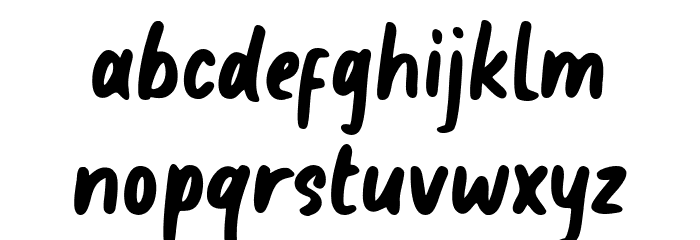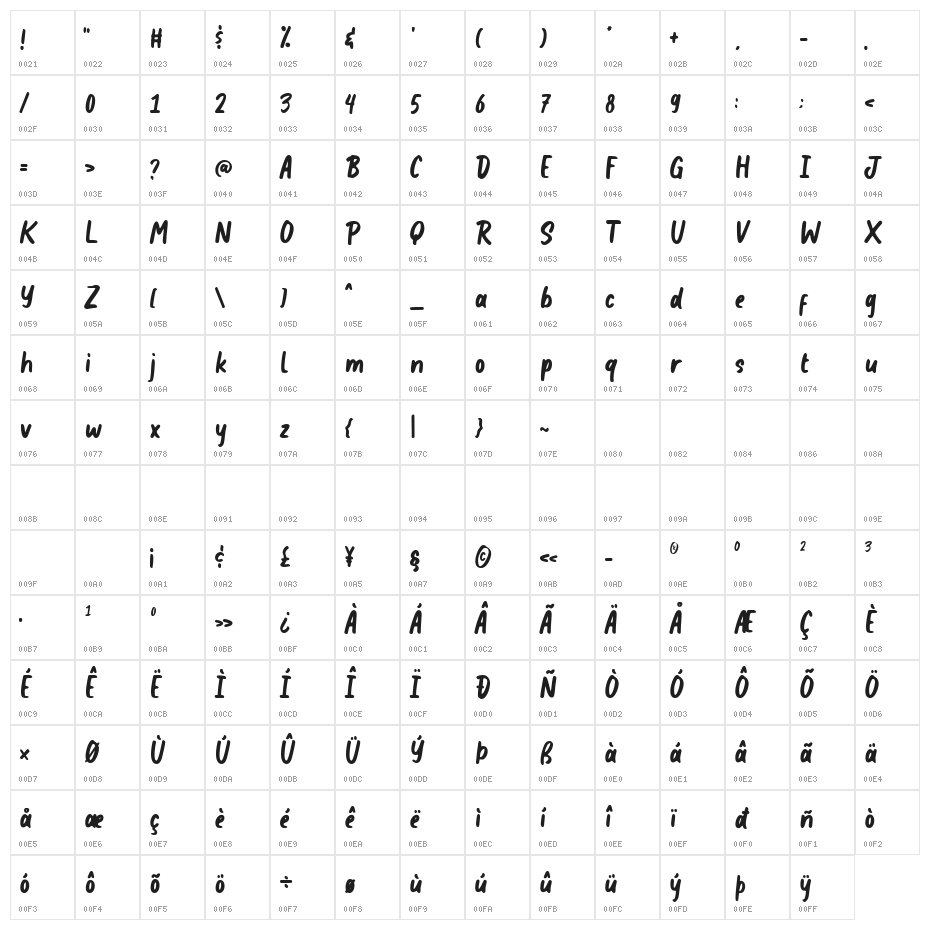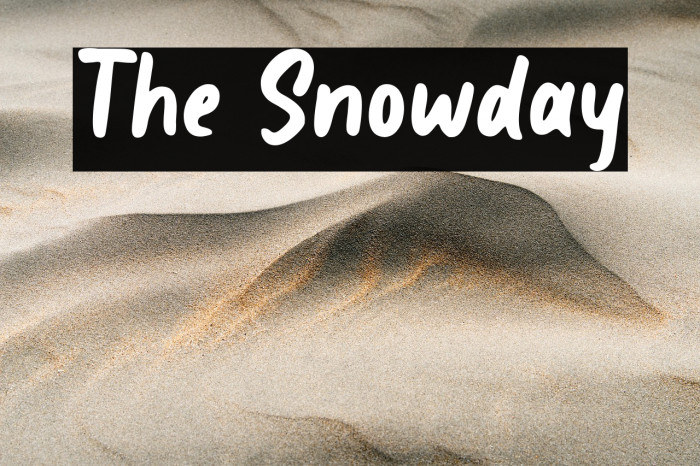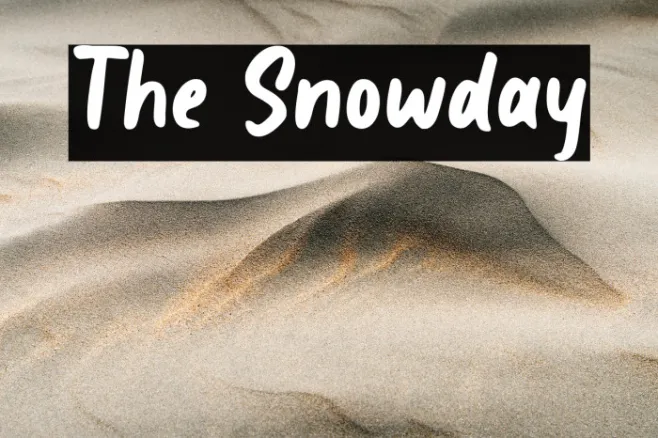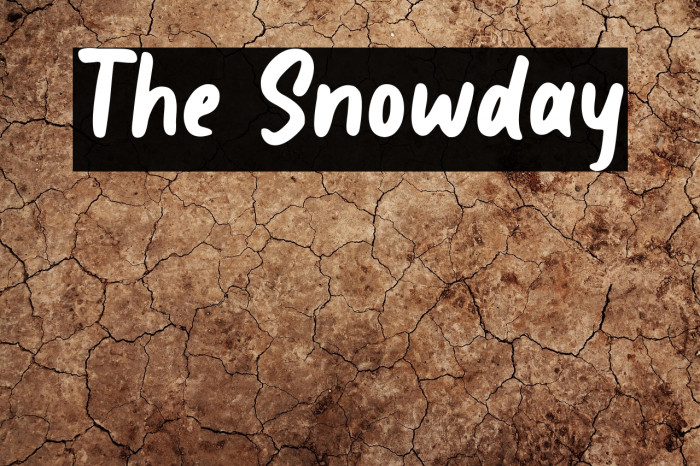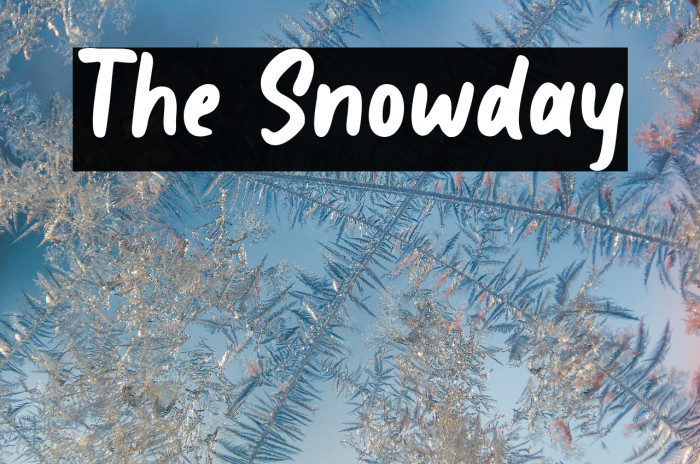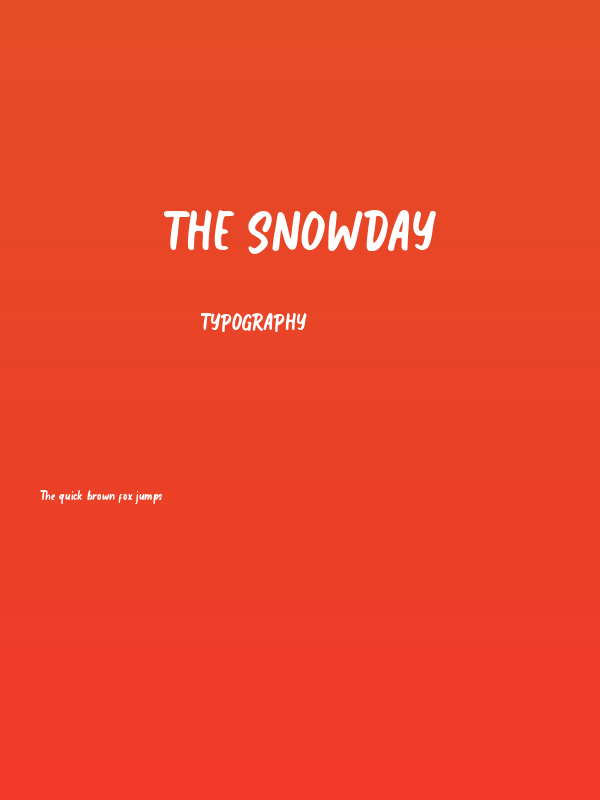
The Snowday Font
This playful and energetic font features a handwritten style with a bold and slightly irregular appearance. The characters are rounded and have a casual, friendly feel, making it ideal for projects that require a personal touch. The uppercase letters are slightly taller than the lowercase, adding a dynamic contrast. The numbers and special characters maintain the same lively style, ensuring consistency across all text elements. The font's informal nature makes it perfect for creative and fun applications.
A bold, handwritten font with a playful and casual style.
- Proposed Projects: Ideal for greeting cards, children's books, playful branding, and social media graphics.
- Category: Handwritten
- Overall Style: Playful
- Use Case: Headlines, Logos, Informal Text